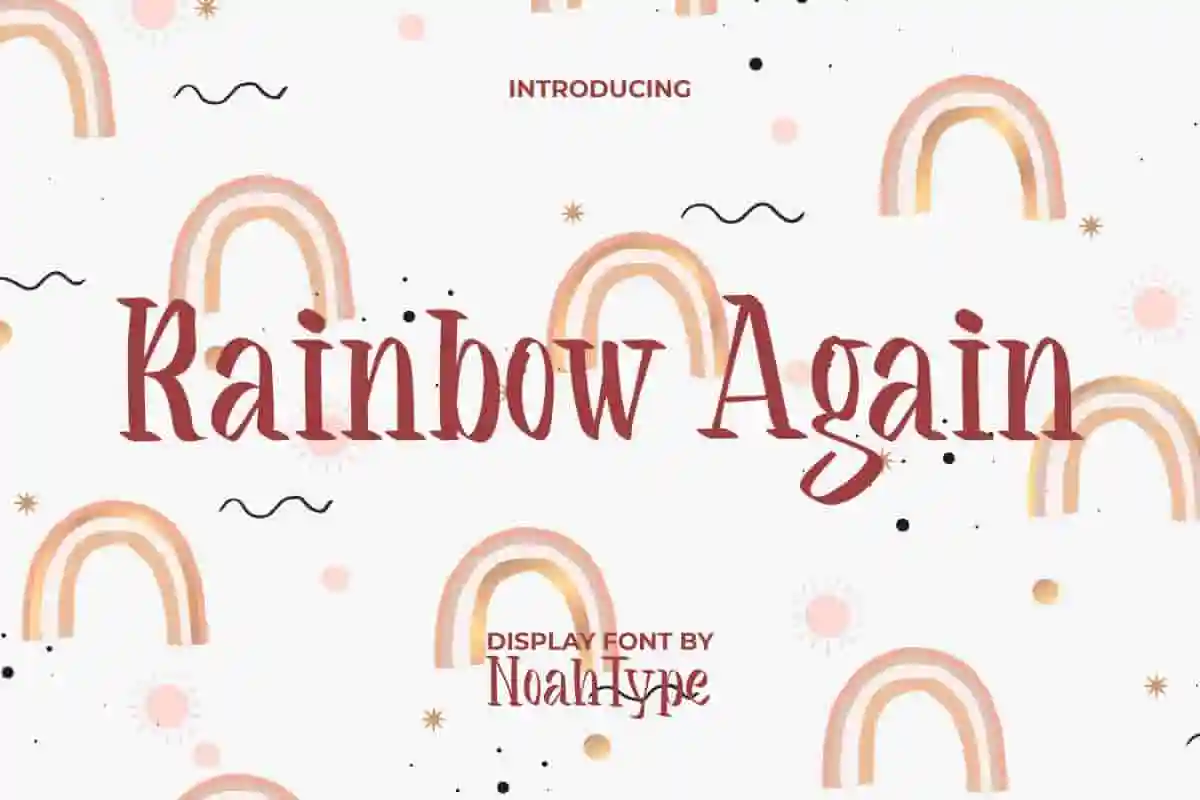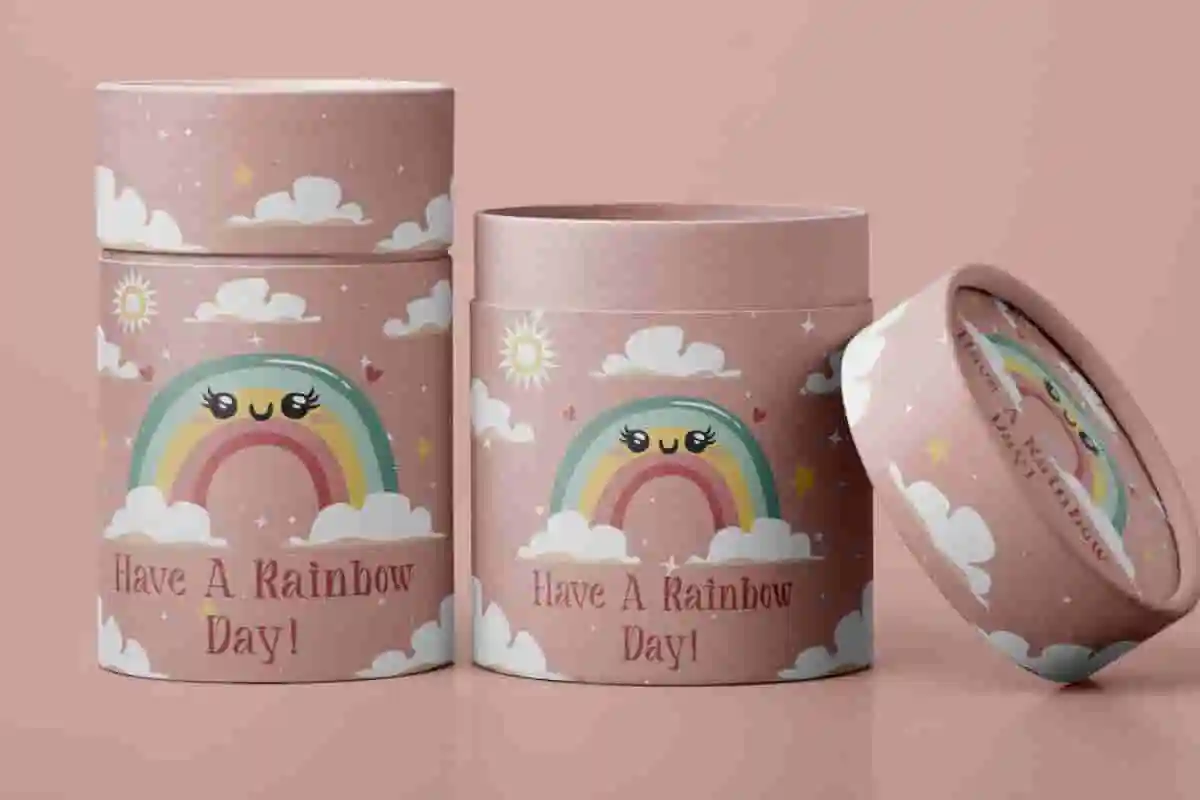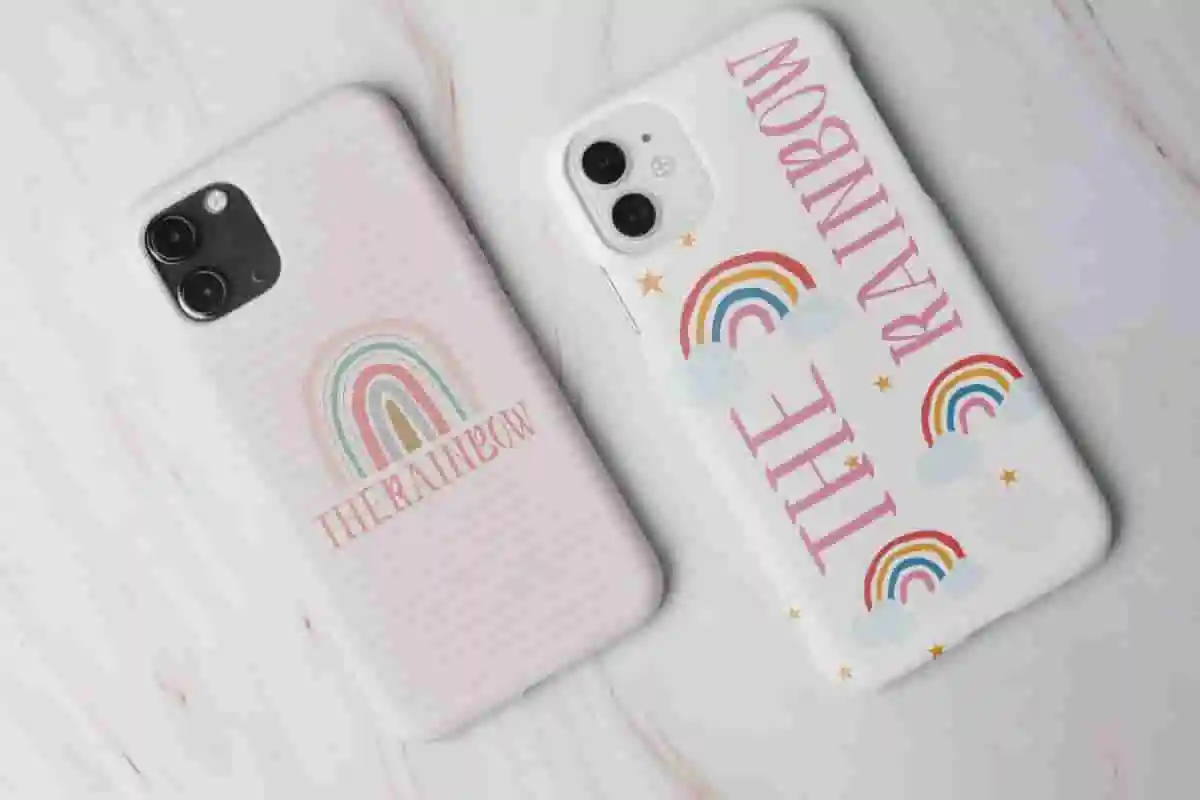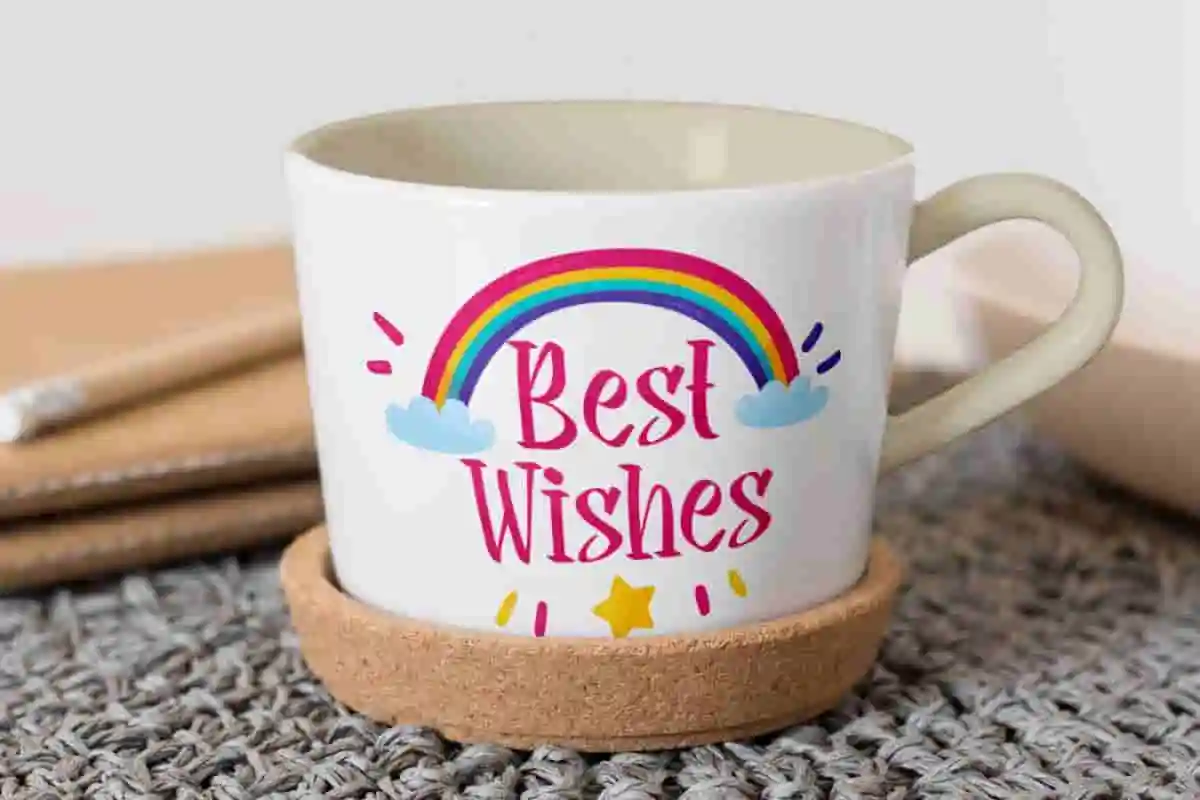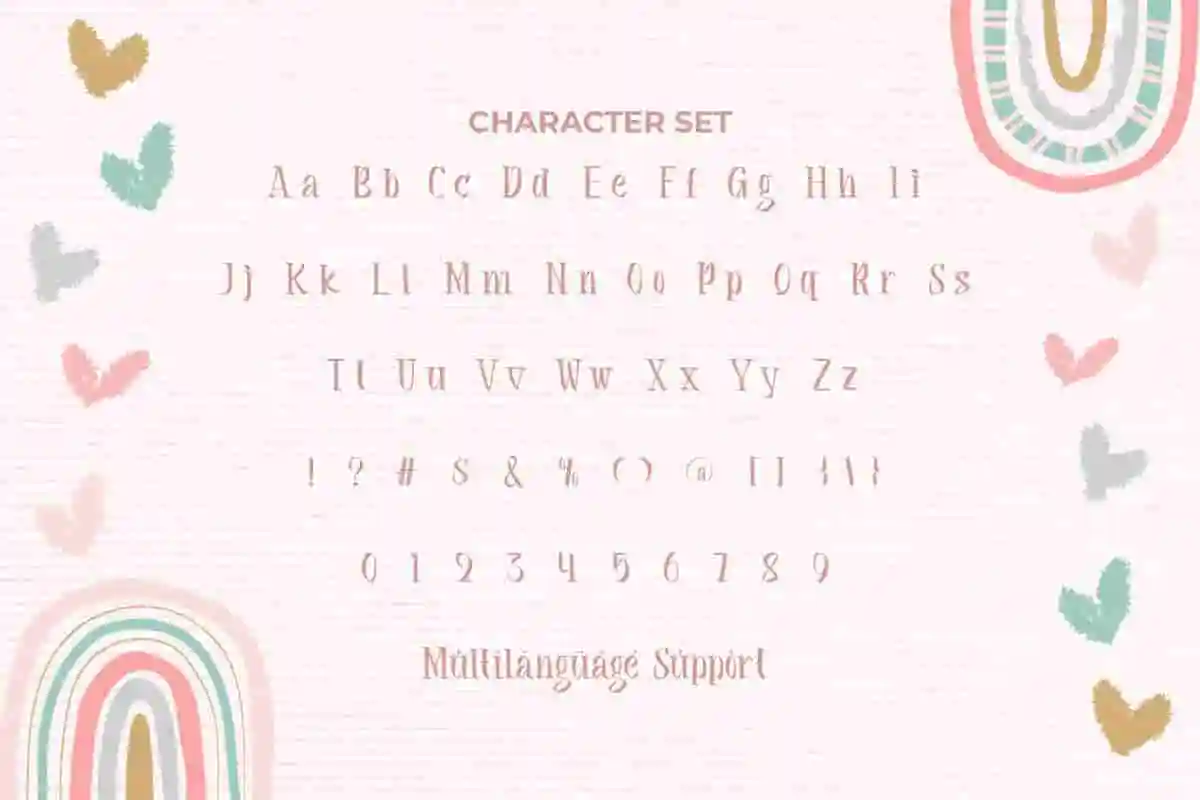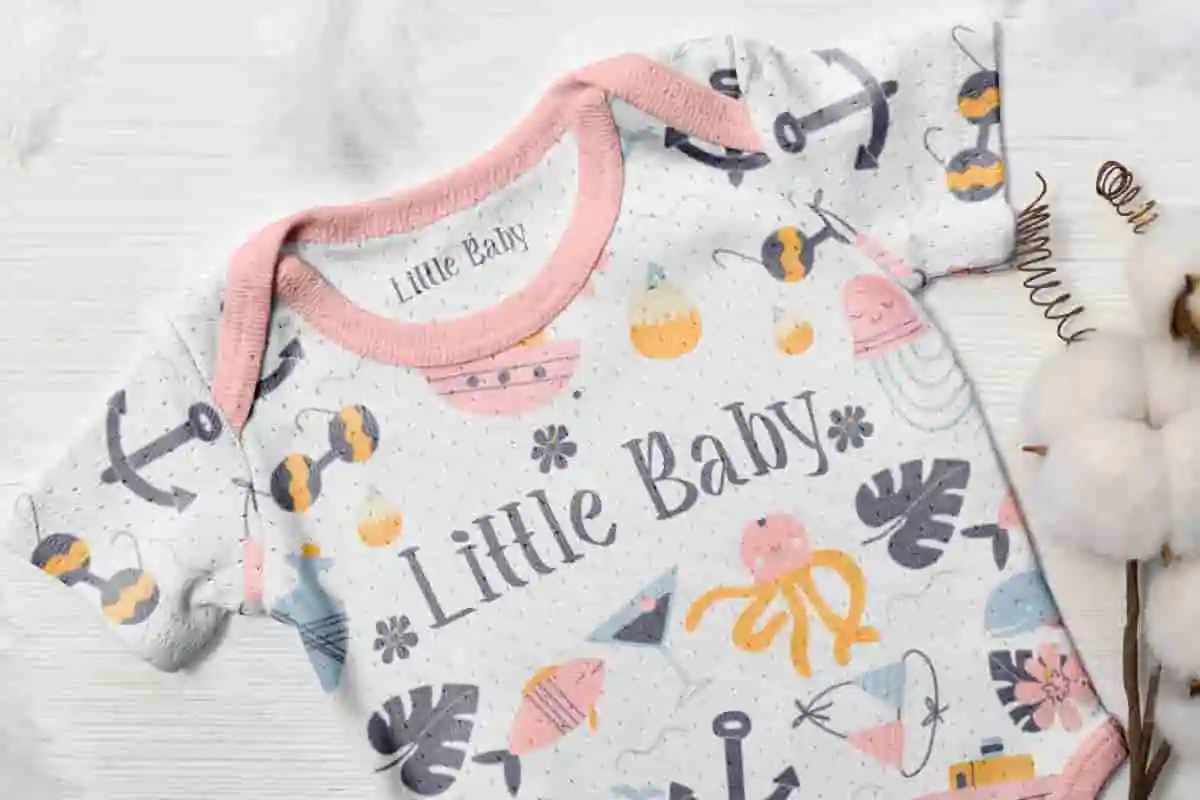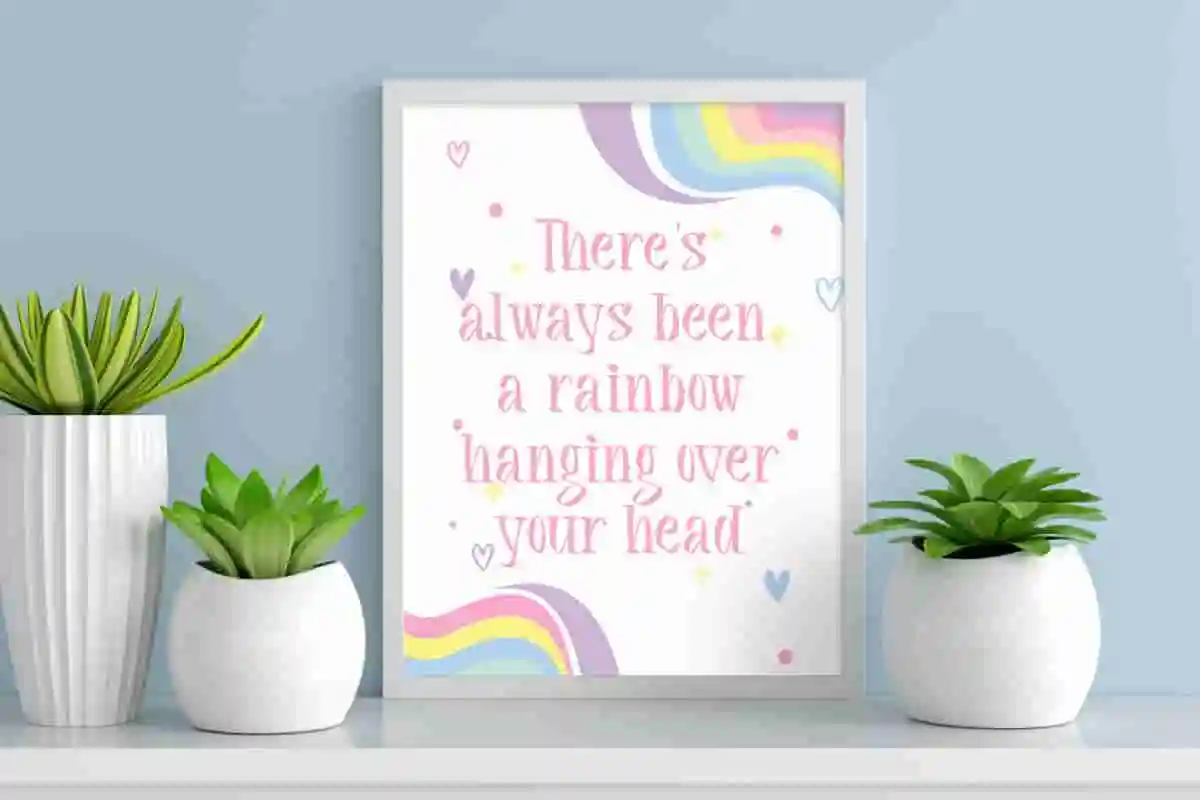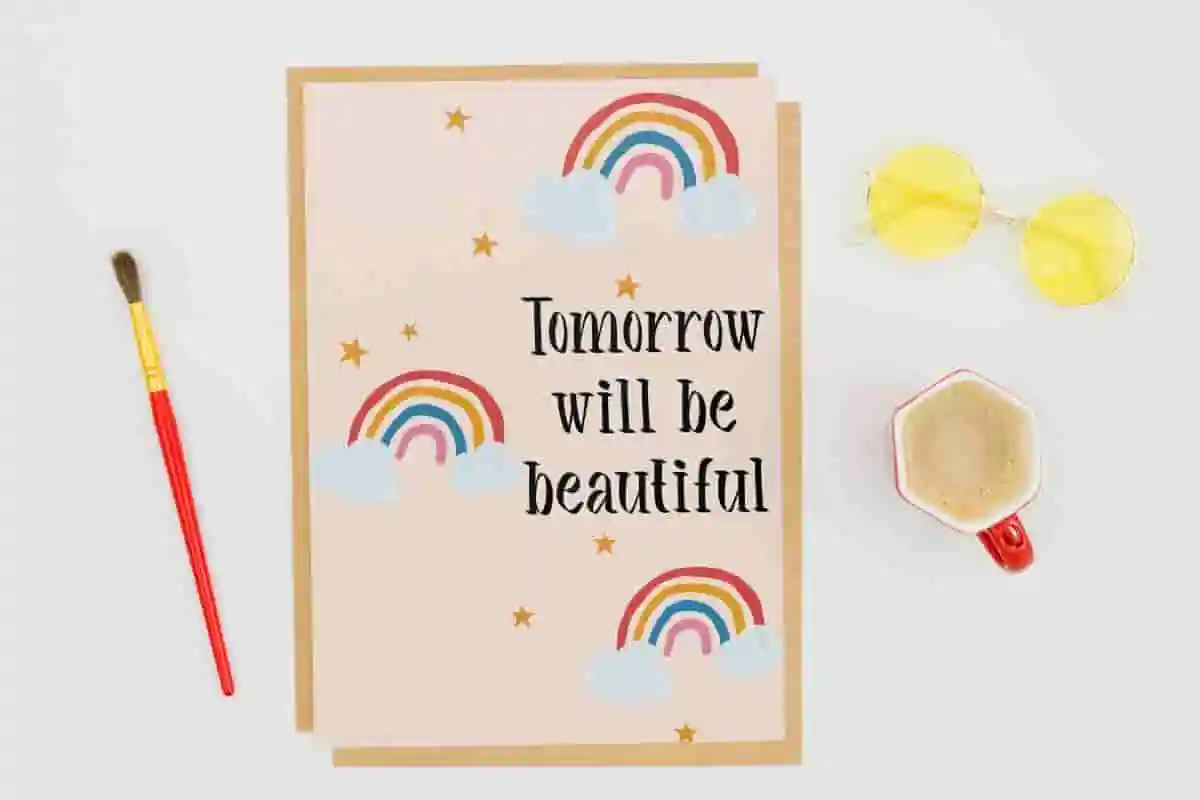
Rainbow Again Font is a cute display font by NoahType. This font has a beautiful and thin shape that gives stunning looks. This font will suit many designs, such as brand image, business card, cartoon, catalog, comic, cover, custom design, invitation, label, menu, poster, quote, stationery, web, and more!
Rainbow Again Font includes full set of Uppercase and Lowercase Basic Characters, Numerals and Punctuation. The characters of this font will give soft and cute appearances and perfect choice for many industries, such as advertisement, café, event organizer, fashion, food and beverage, kids stuff, movie, printing, publishing, etc.